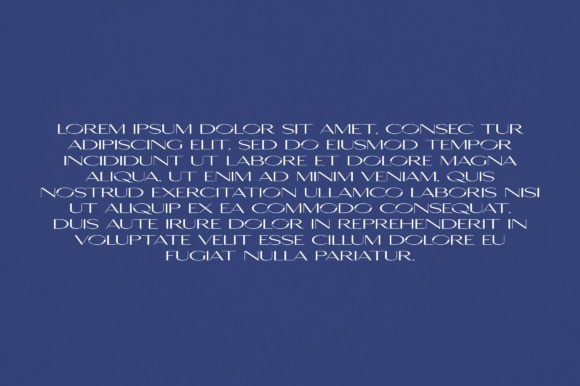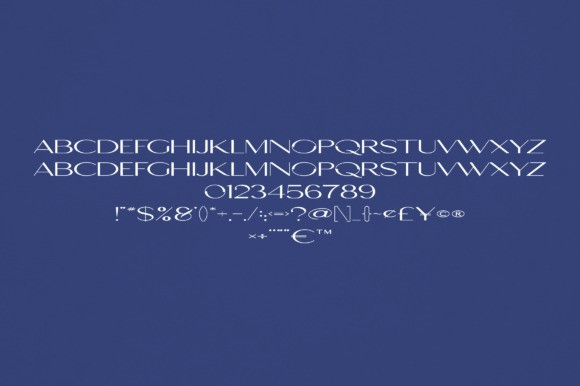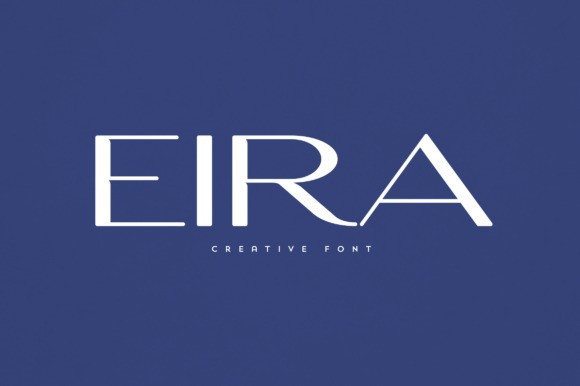
Eira Font
Eira Font is an elegant and versatile font that will make your typography truly unique! It will enchant every logo, branding, headline, or plain text!